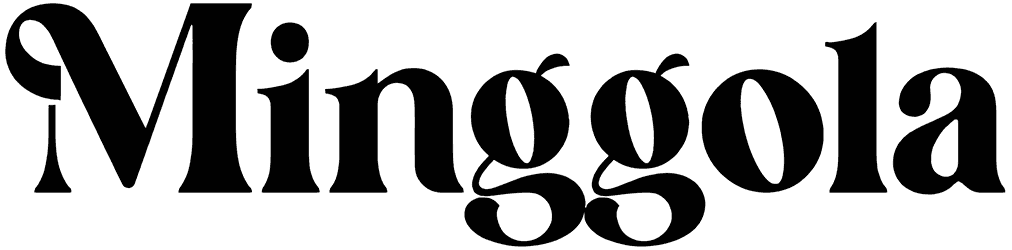
Minggola Font
If you think you already have enough serif fonts in your collection, Minggola can change your mind. Once you pair its swirly capitals with its lovely lowercase, you’ve got yourself one of the greatest pieces of art you have ever created.
Besides, as a retro font, Minggola allows you to bring tons of good vibes into your typography. Whether it’s for a café logo, a clothes online shop website, or perfume labels, you’re going to want this elegant font there.